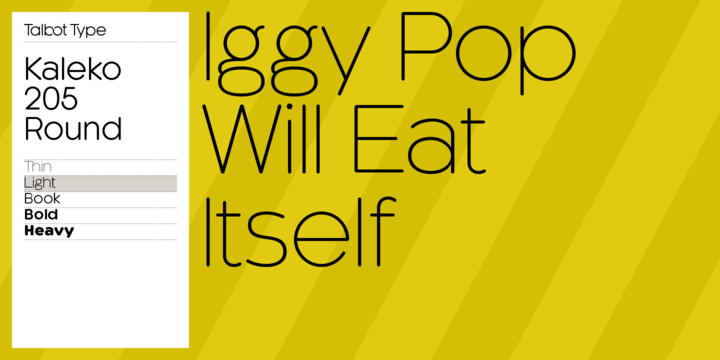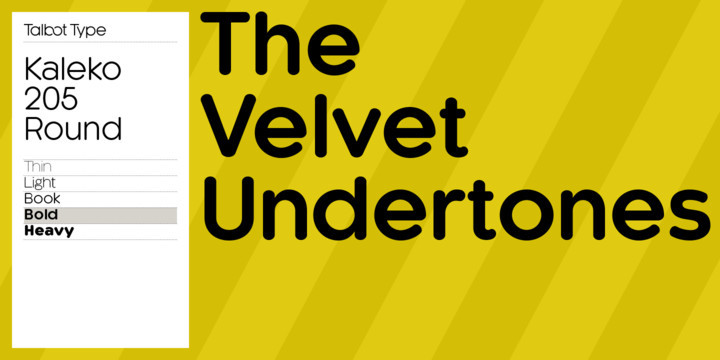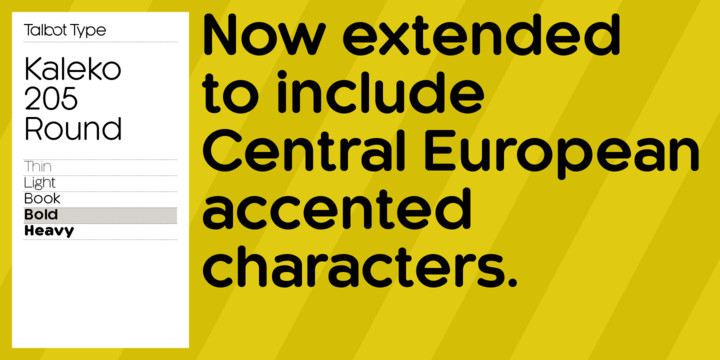
Kaleko 205 Round Font
Kaleko 205 Round is a rounded variation of Talbot Type font Kaleko 205. It’s a well-balanced, versatile, modern sans, highly legible as a text font and with a clean, elegant look as a display font at larger sizes. The rounded terminals give it a friendly, approachable look. The Kaleko 205 Round family comprises of five weights and is closely related to Kaleko 105 Round. The most notable differences between the two variations are the two-storey lower case a and g in Kaleko 205 Round, where they are single-storey in Kaleko 105 Round.